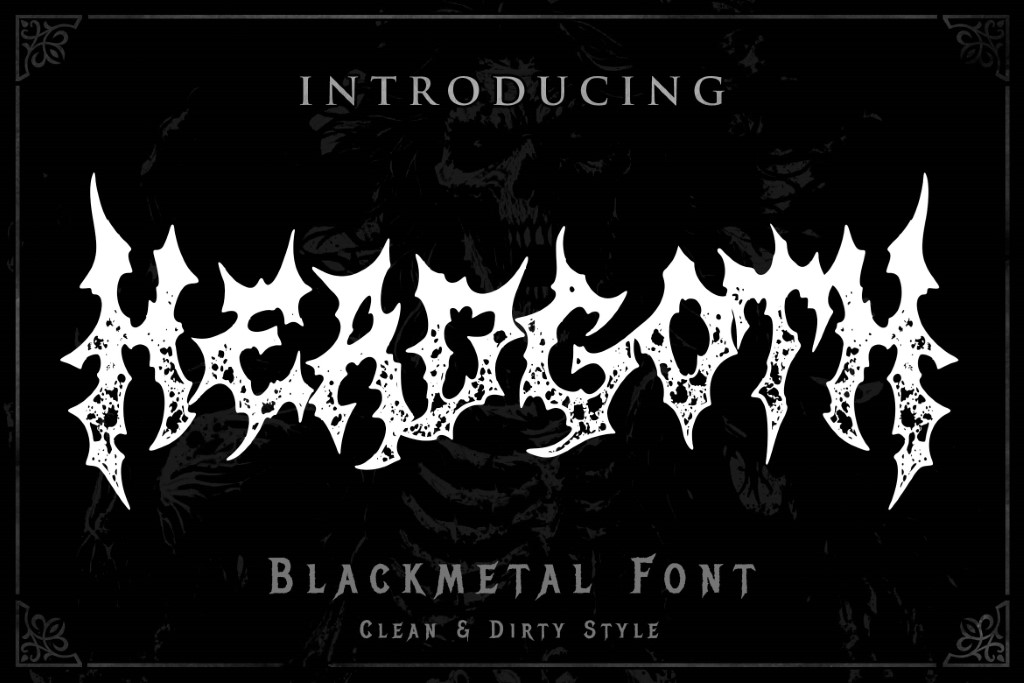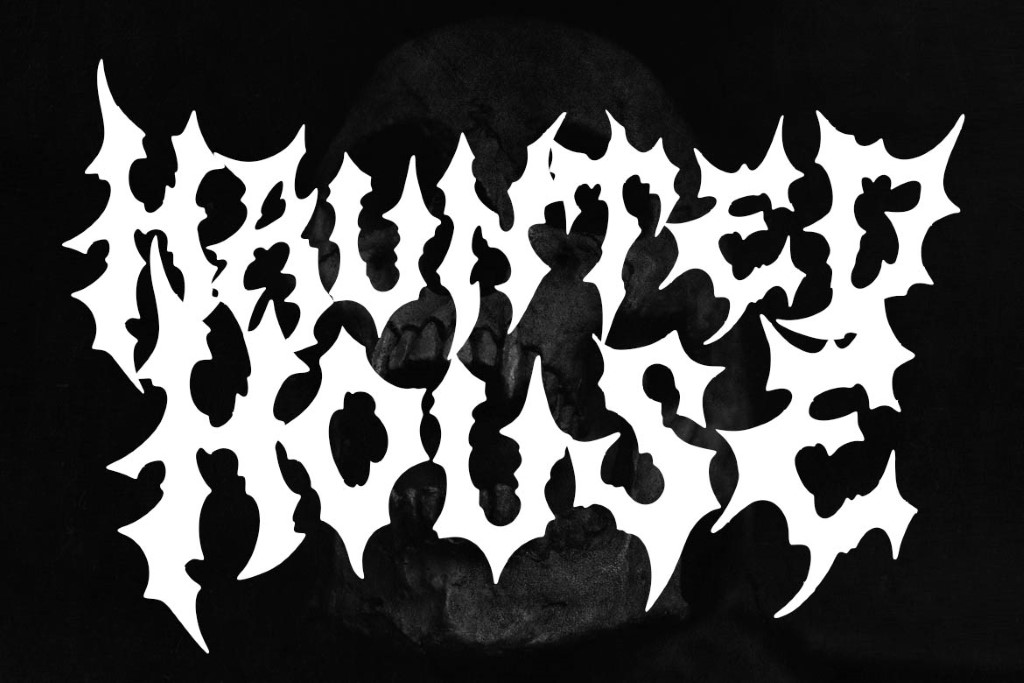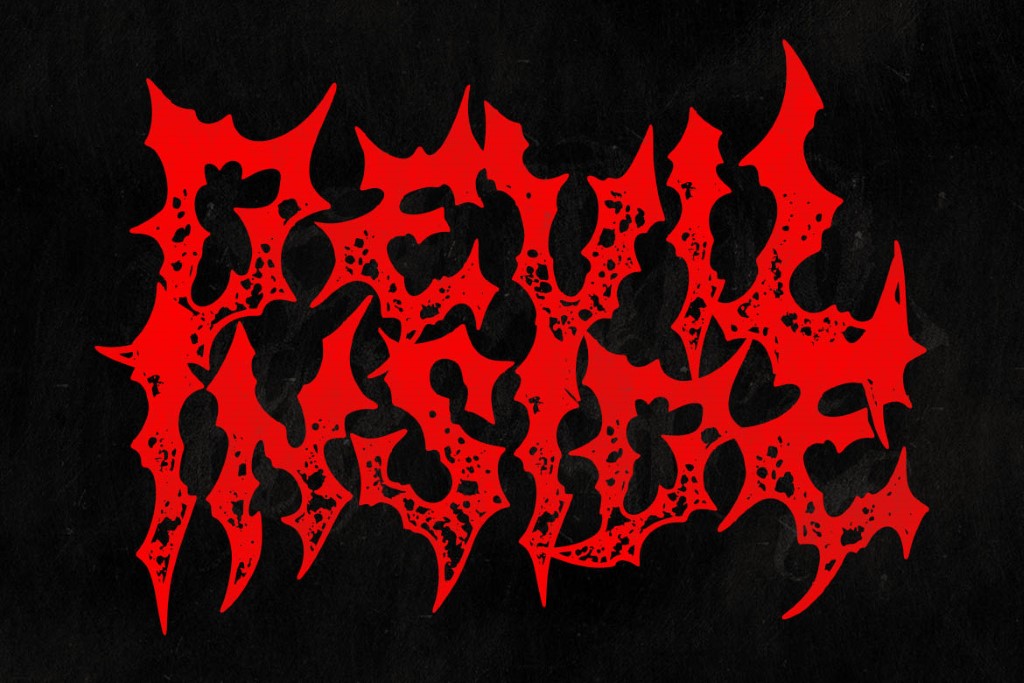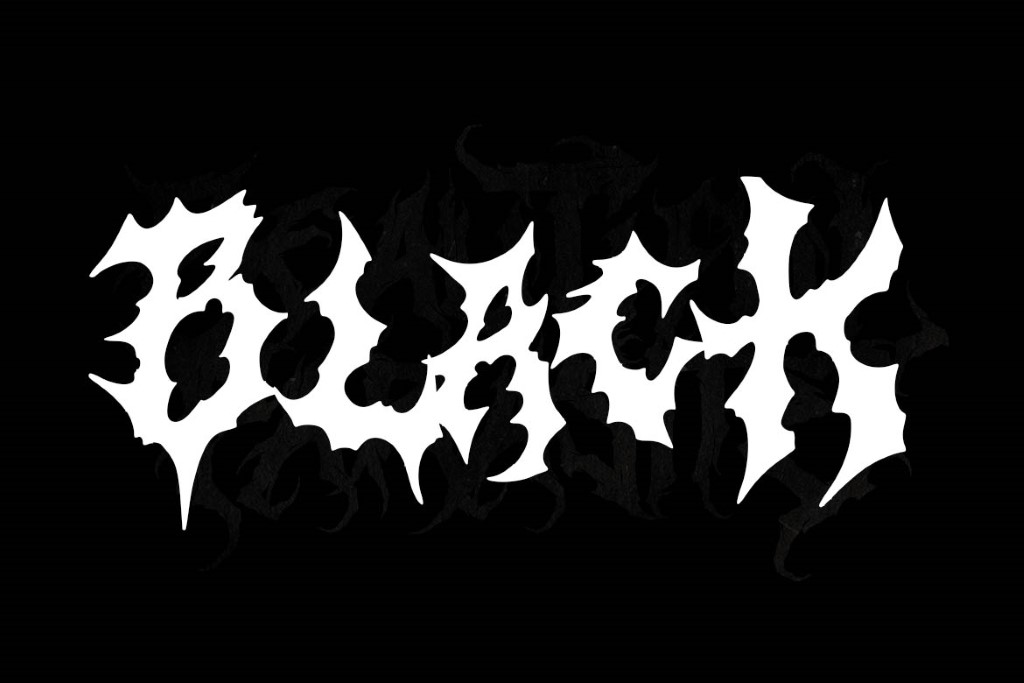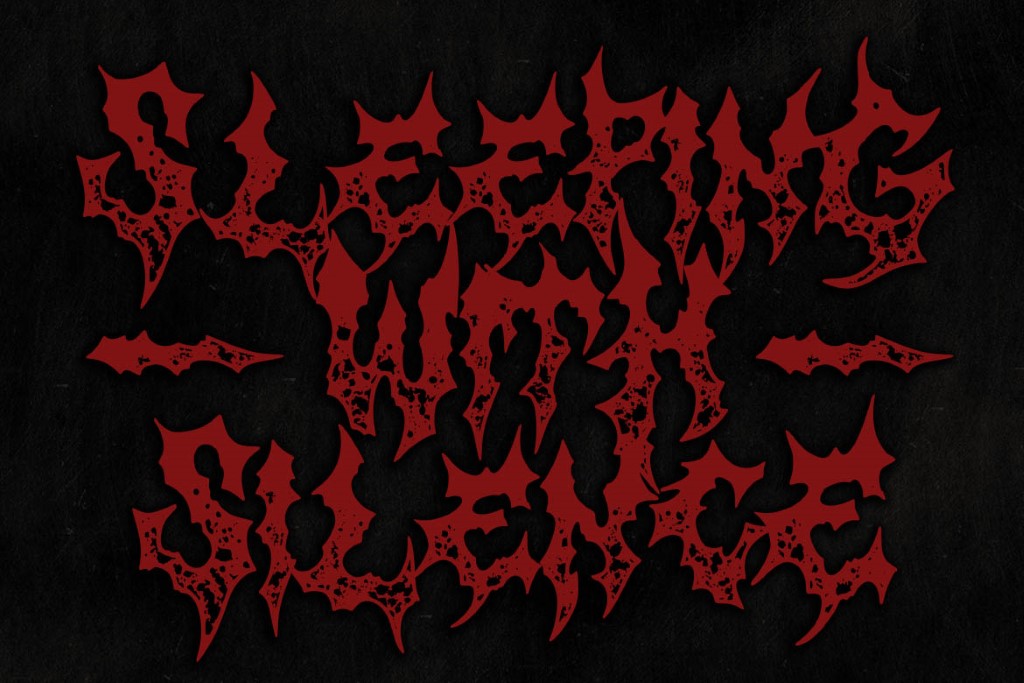
Headgoth Metal
Headgoth Metal is awesome death metal font. Comes with Uppercase and lowercase characters. This font is great for any gore/metal/brutal design purposes. Headgoth Metal is awesome for your logo, your band, for merchandise, for clothing, and movie title/poster